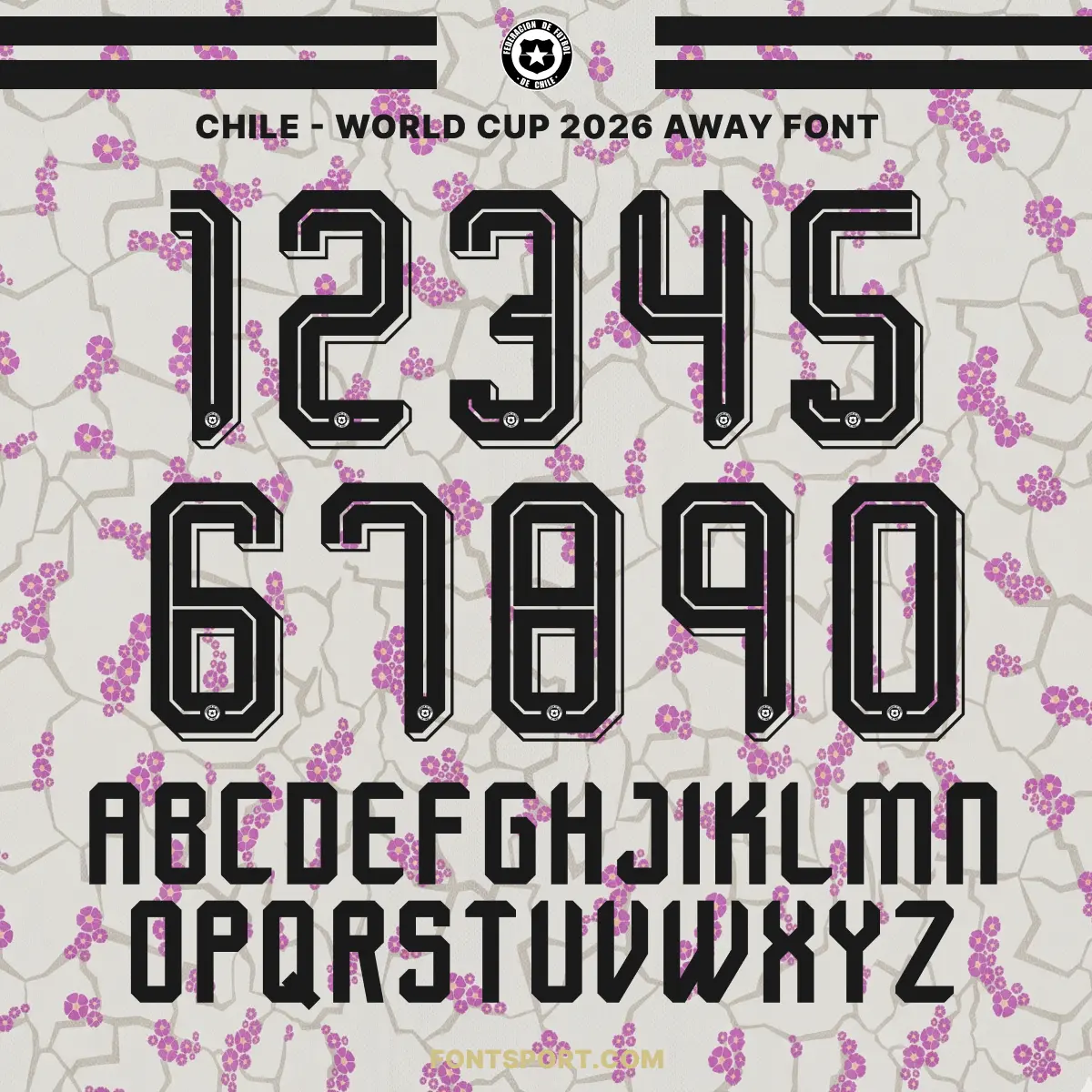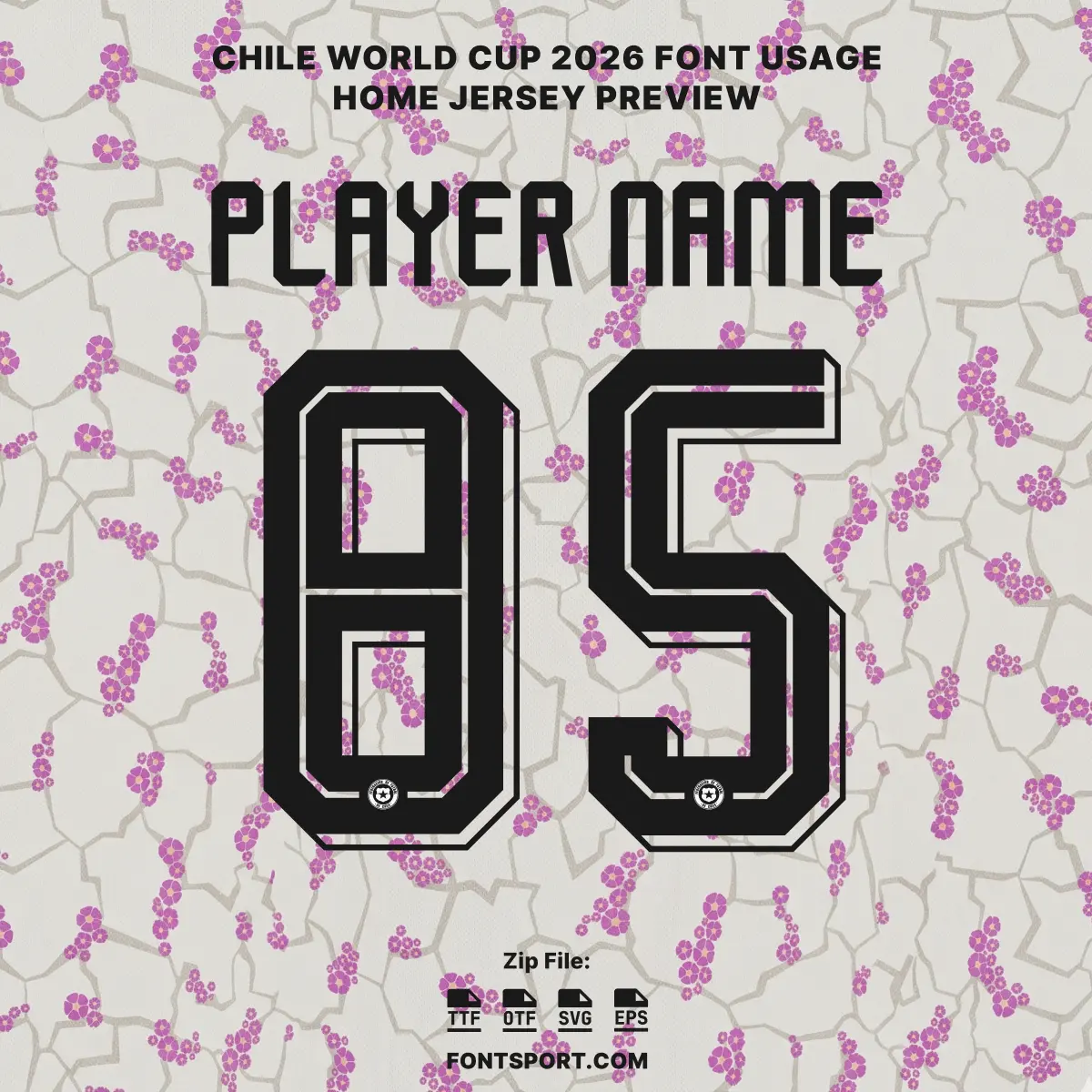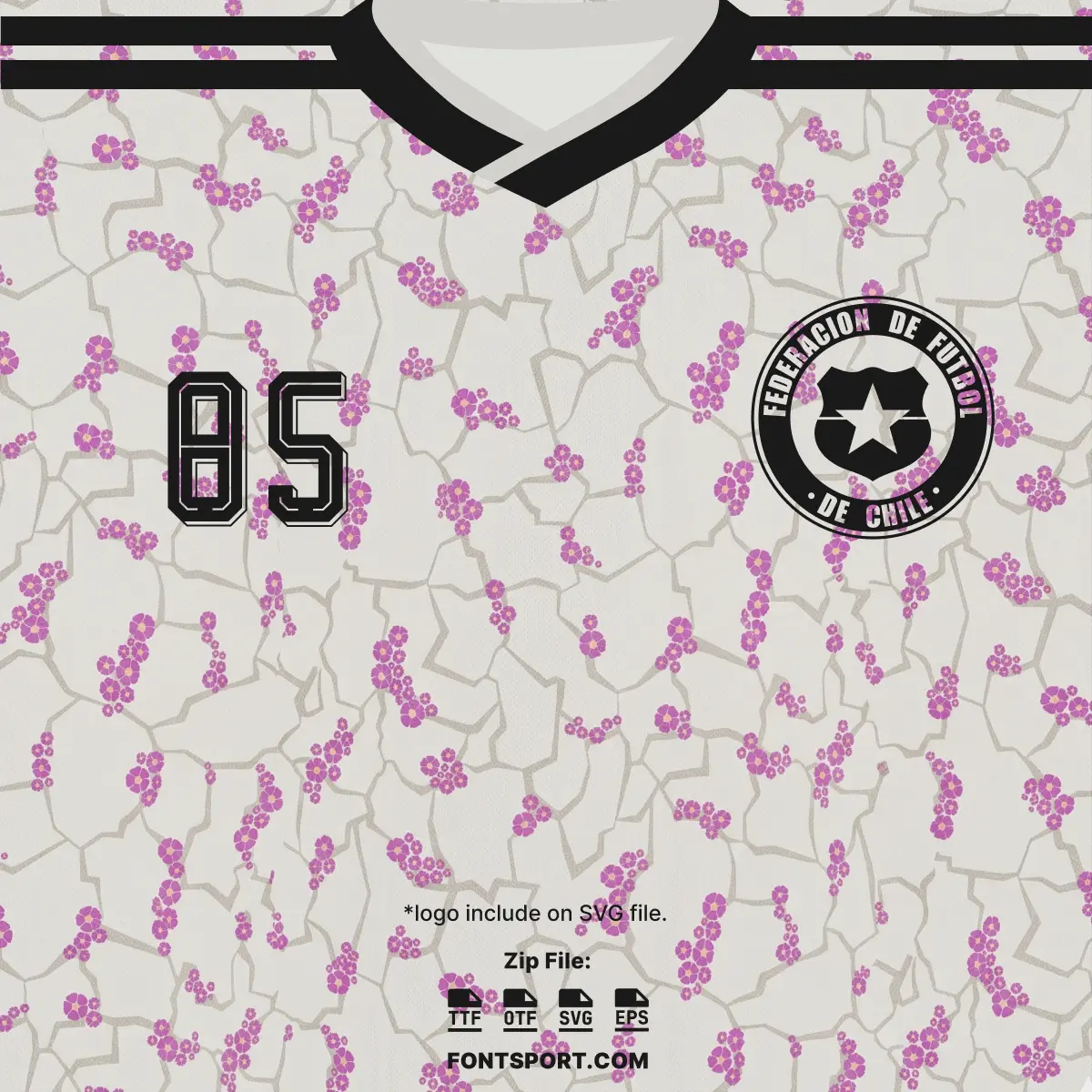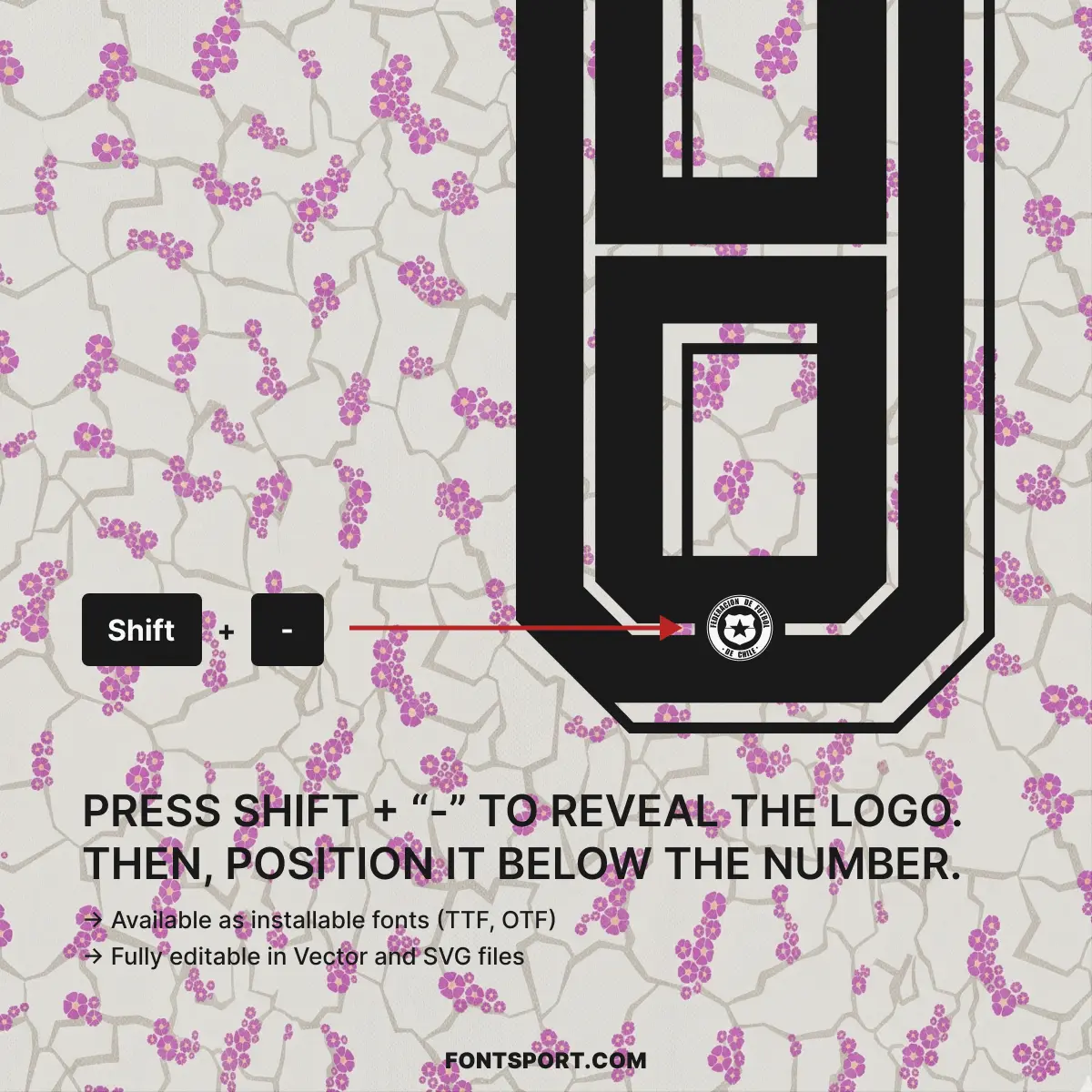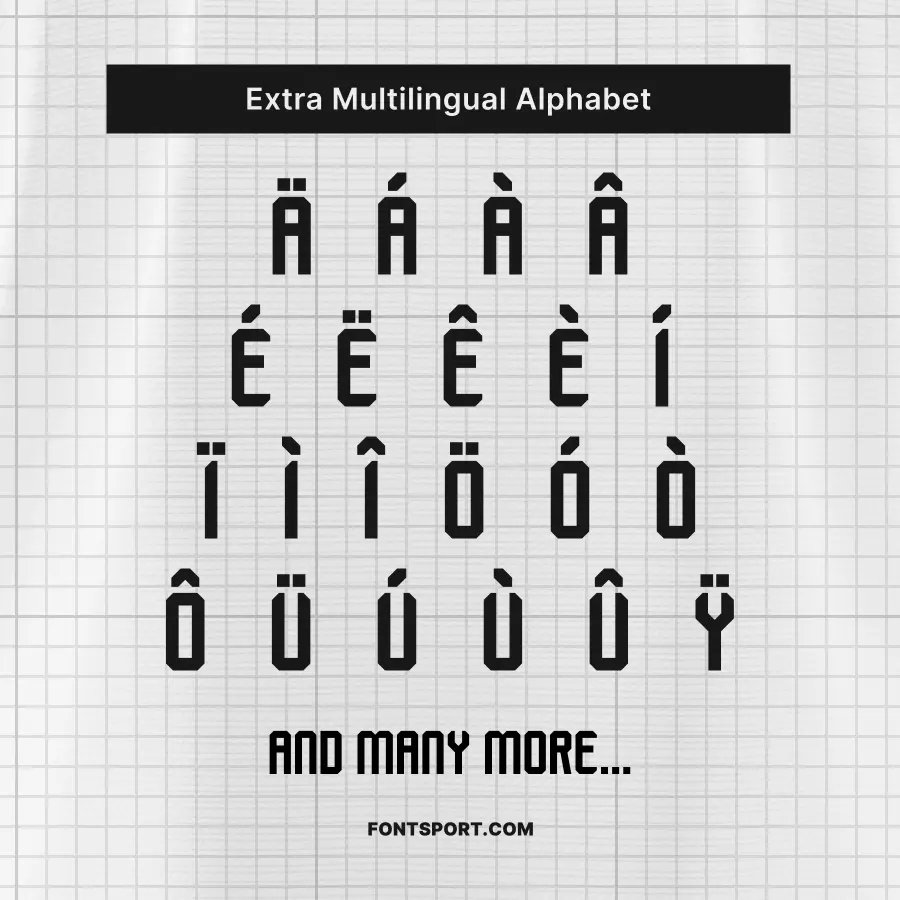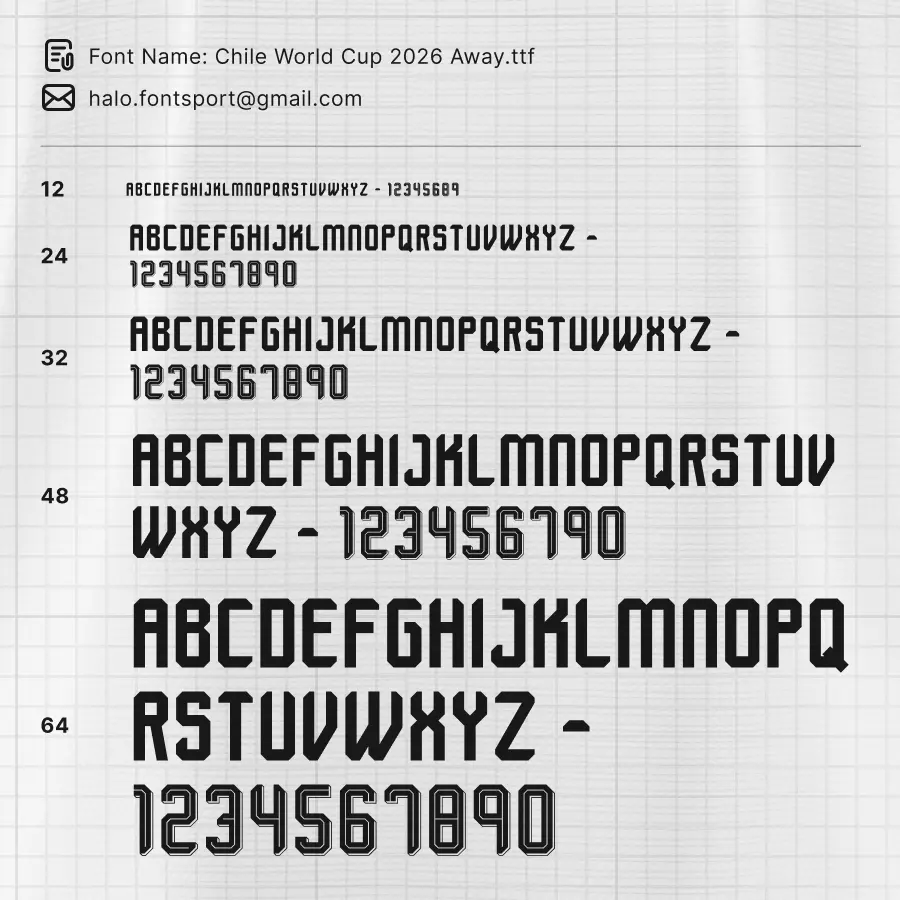
Chile World Cup 2026 Away Font Kit – Football Typeface
The Chile World Cup 2026 Away Font Kit captures the resilient and blooming spirit of La Roja as they navigate a bold new era of South American football. This font reflects the natural beauty of the Chilean landscape, offering a sophisticated and professional look that fits perfectly with any athletic-themed design. Whether you are crafting digital graphics or physical apparel, this kit helps your vision stand out with the precision and flair of the Chilean national team.
Complete Character Set: Features the full A–Z uppercase alphabet and a sharp 0–9 number set optimized for high-visibility jersey numbering.
Multilingual Support: Includes a full range of accented characters (Ä, Á, È, Î, Ë, etc.) to accurately represent international player names.
Integrated Team Identity: Trigger the official-style federation logo or specialized star motifs within your typography through simple keyboard shortcuts.
This kit is the perfect asset for designers working on football-themed projects, allowing you to replicate the elite “on-pitch” look of the current international season.
This font kit is engineered for those who want to merge cultural storytelling with professional athletic branding:
Inspired by the Atacama: The design mirrors the clean, modern aesthetic of the newest away collection, which celebrates the “desierto florido” (blooming desert) phenomenon.
Optimized for Apparel: This is an ideal font for jersey customization, team branding, and match-day graphics.
Historical Milestone: Reflects the transition to the adidas Trefoil era, marking a return to classic heritage aesthetics for the 2026 cycle.
Versatile Design Asset: Use it as a football font for digital match-day banners or a sport font for physical print-on-demand products.